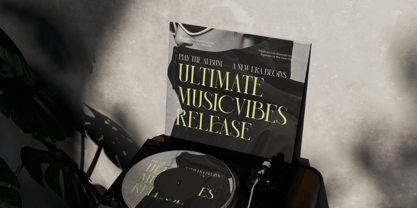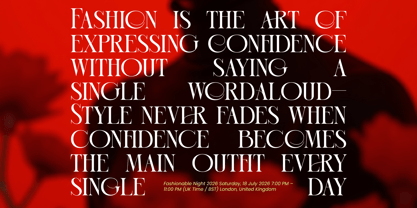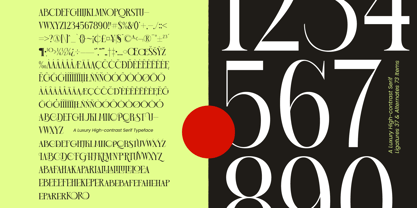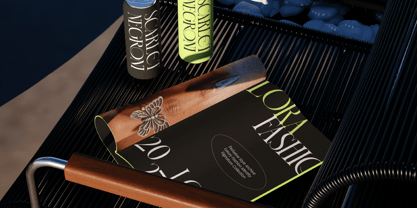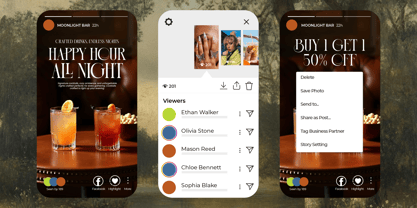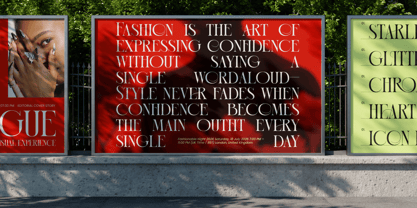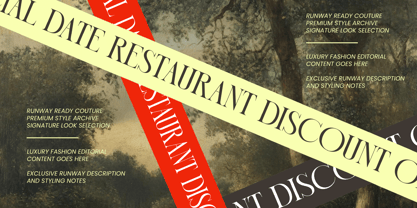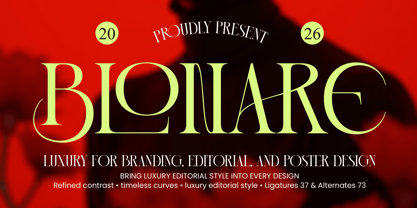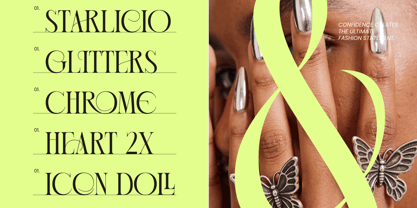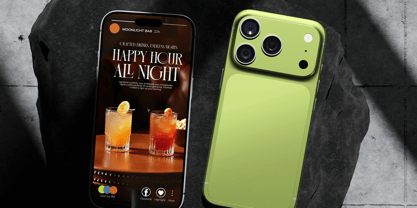
Blonare
Blonare, a typeface designed to command attention and evoke deep emotional resonance. This font captures the essence of modern prestige, transforming every word into a statement of high-end style.
Inspired by the golden age of fashion magazines and the sharp precision of architectural silhouettes, the design balances rigid structure with fluid, artistic curves. It draws from a heritage of timeless beauty, reimagined for the fast-paced world of contemporary visual storytelling.
Exuding a sense of confidence and poise, this modern serif display is crafted for high-impact visual communication. Its extreme high-contrast serif strokes and delicate hairlines offer a unique luxury typography experience that delivers a powerful branding impact and a professional editorial font finish.